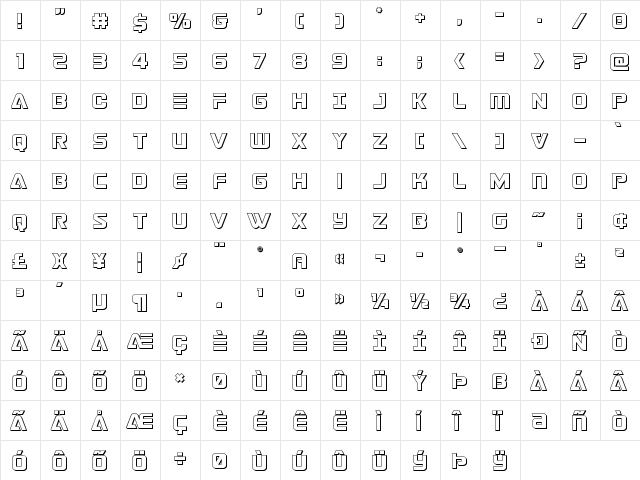
Astro Armada 3D Regular Font Preview
Astro Armada 3D Regular
Astro Armada 3D Regular Font Details
Design Context for Astro Armada 3D Typeface
Astro Armada 3D is a composed and adaptable typeface that performs quietly and consistently across a wide range of design contexts.